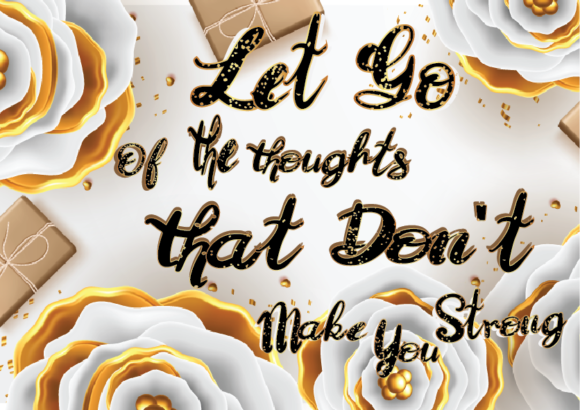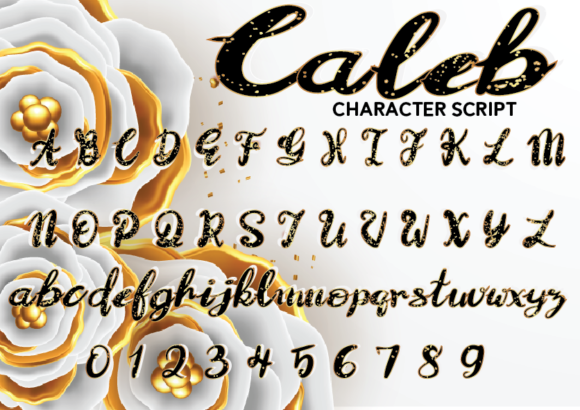
Caleb Font: Elevate Your Designs with Elegance and Versatility
In the world of typography, a well-crafted font can make all the difference in elevating your designs from ordinary to extraordinary. Introducing Caleb Font, a truly outstanding handwritten font that simplifies elegance into a single, versatile typeface. With its classy calligraphic influences and contemporary feel, Caleb Font is perfect for crafty designers and crafters looking to add a touch of sophistication to their projects.
The Essence of Caleb Font
Caleb Font is a masterfully designed handwritten font that strikes the perfect balance between elegance and modernity. Its calligraphic roots are evident in the flowing lines and curves, yet it feels fresh and contemporary, making it suitable for a wide range of design applications. Whether you’re working on letterheads, titles, stationery, or any other project that requires a touch of refinement, Caleb Font is an excellent choice.
One of the standout features of Caleb Font is its versatility. This font can seamlessly adapt to various design contexts, from formal and professional to creative and playful. The elegant lines and curves of Caleb Font make it perfect for:
- Letterheads and Business Stationery: Add a touch of sophistication to your business correspondence with Caleb Font.
- Titles and Headings: Create eye-catching titles and headings for your blog posts, articles, or marketing materials.
- Stationery and Invitations: Design beautiful stationery, invitations, and greeting cards that exude elegance and refinement.
- Branding and Packaging: Use Caleb Font to create a cohesive brand identity that reflects your values and personality.
Why Choose Caleb Font?
With so many fonts available, why choose Caleb Font? Here are just a few reasons why designers and crafters love this exceptional typeface:
- Unique Character: Caleb Font has a distinct personality that sets it apart from other fonts.
- Ease of Use: This font is incredibly easy to read and works well in various sizes and contexts.
- High-Quality Design: Caleb Font is designed with precision and attention to detail, ensuring a premium look and feel.
- Contemporary and Fresh: The font’s modern take on traditional calligraphy makes it perfect for designers looking for a current and stylish typeface.
Tips for Using Caleb Font Effectively
To get the most out of Caleb Font, here are some expert tips:
- Pair with Neutral Fonts: Combine Caleb Font with neutral fonts to create a harmonious and balanced design.
- Experiment with Sizes: Play with different font sizes to create visual hierarchy and add emphasis to your text.
- Use for Headlines and Titles: Take advantage of Caleb Font’s elegance and use it for headlines and titles to grab attention.
Caleb Font is a game-changer for designers and crafters looking to elevate their projects with a touch of elegance and sophistication. Its versatility, unique character, and high-quality design make it an excellent addition to any design arsenal. Whether you’re working on a formal business project or a creative personal endeavor, Caleb Font is sure to impress. So why wait? Discover the power of Caleb Font and take your designs to the next level.